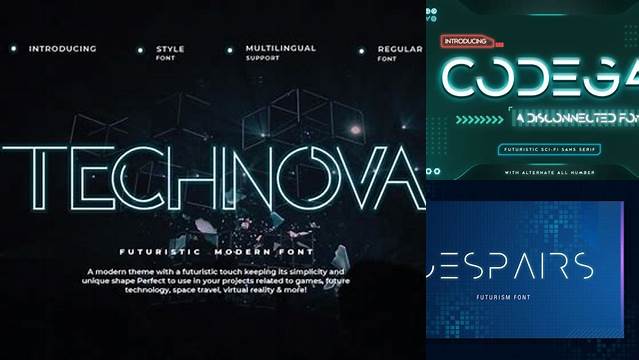
Futuristic Fonts: Free Downloads On Freepik!
Hey guys! Ever wanted to give your designs that cool, sci-fi edge? Well, you're in the right place! We're diving deep into the world of futuristic fonts, especially those amazing options you can find on Freepik. Futuristic fonts are all about conveying a sense of innovation, technology, and a glimpse into what's to come. They're perfect for projects that need a modern and cutting-edge feel, from website headers and app interfaces to movie posters and video game titles. So, let's explore how you can use these fonts to make your projects stand out!
What Makes a Font Futuristic?
Before we jump into specific fonts, let's talk about what actually makes a font feel futuristic. It's not just about looking like something from a sci-fi movie; there are certain design elements that contribute to that feeling. Typically, futuristic fonts often incorporate sleek lines, geometric shapes, and a minimalist aesthetic. They might have sharp angles, disconnected letterforms, or even incorporate elements that mimic digital displays or circuit boards. Think about the fonts you've seen in the title sequences of your favorite sci-fi films – those are great examples of what we're aiming for. The key is to create a visual style that evokes a sense of forward-thinking and technological advancement. These fonts can range from very subtle nods to the future to all-out, bold statements. Some might use a simple sans-serif typeface with slightly modified characters, while others might be completely abstract and experimental. It really depends on the specific mood and message you want to convey.
H2: How to Choose the Right Futuristic Font
Choosing the right futuristic font can make or break your design. It's not just about picking something that looks cool; it's about selecting a font that aligns with your project's message and aesthetic. Think about the overall tone you want to convey. Are you going for a sleek and sophisticated look, or something more edgy and experimental? A minimalist font with clean lines might be perfect for a tech startup's website, while a bolder, more abstract font could be ideal for a video game title. Consider the readability of the font, especially if you're using it for body text or longer paragraphs. A highly stylized font might look great in a headline, but it could be difficult to read in smaller sizes. Think about the context in which the font will be used. Will it be displayed on a screen, printed on paper, or used in a logo? Some fonts work better in certain mediums than others. For example, a font with very thin lines might not reproduce well in print. Finally, don't be afraid to experiment! Try out different fonts and see how they look in your designs. You might be surprised at what you discover. The best futuristic font is one that enhances your project and helps you communicate your message effectively.
H2: Using Futuristic Fonts in Web Design
Futuristic fonts can be a game-changer for web design, instantly giving your site a modern and tech-savvy vibe. Imagine a sleek, minimalist website for a tech startup, using a futuristic font for the headers and call-to-action buttons. It immediately conveys innovation and a forward-thinking approach. When using these fonts on the web, think about readability. While a bold, stylized font might be perfect for headlines, you'll want something clearer and more legible for body text. Pair a futuristic font for headings with a clean, sans-serif font for the body to ensure a balance of style and readability. Also, consider the loading times of your fonts. Some complex futuristic fonts might take longer to load, which can slow down your website. Opt for web-optimized fonts or use font loading techniques to minimize any impact on performance. Think about the overall color scheme of your website too. Futuristic fonts often look great against dark backgrounds, creating a sense of sophistication and mystery. Use them sparingly and strategically to create a visual hierarchy and guide users through your content. With the right futuristic font, your website can make a powerful statement and leave a lasting impression.
H2: Futuristic Fonts for Logo Design
A logo is the face of your brand, and a futuristic font can give your logo a cutting-edge and memorable identity. Think about tech companies, gaming brands, or innovative startups – a futuristic font can perfectly capture their forward-thinking spirit. When choosing a font for your logo, think about its versatility. Your logo will appear in various sizes and mediums, so the font needs to be legible and impactful whether it's on a business card or a billboard. A simpler, cleaner futuristic font often works best for logos, as it will scale more effectively and remain recognizable even at small sizes. Consider the negative space in your logo as well. Futuristic fonts with unique shapes and lines can create interesting negative space patterns that add to the visual appeal of your logo. Think about how the font reflects your brand values. A futuristic font can convey innovation, technology, and a modern outlook. Ensure the font aligns with your brand personality and resonates with your target audience. Don't be afraid to customize a futuristic font to make it truly unique to your brand. You can adjust the spacing, kerning, or even modify the letterforms to create a one-of-a-kind logo that stands out from the crowd. A well-chosen futuristic font can elevate your logo and help your brand make a strong statement.
H2: Creating a Sci-Fi Aesthetic with Fonts
If you're aiming for a full-on sci-fi aesthetic, futuristic fonts are your best friend. Think of the opening credits of your favorite sci-fi movies or the immersive world of video games – fonts play a huge role in creating that futuristic atmosphere. To achieve that sci-fi look, go for fonts that have sharp angles, geometric shapes, and a sense of technical precision. Fonts with disconnected letterforms or those that mimic digital displays can also add a futuristic touch. Consider the weight and style of the font. Bold, condensed fonts often convey a sense of power and technology, while lighter, more minimalist fonts can create a sleek and sophisticated feel. Experiment with different font pairings. A futuristic font for headlines combined with a simpler, monospaced font for body text can create a classic sci-fi aesthetic. Think about the color palette you're using as well. Futuristic fonts often look striking against dark backgrounds, especially when paired with neon or electric blue accents. Use lighting effects, such as glows and shadows, to enhance the futuristic feel of your fonts. This can add depth and dimension to your text and make it look like it's glowing from within. With the right futuristic fonts and design choices, you can transport your audience to another world and create a truly immersive sci-fi experience.
H2: Pairing Futuristic Fonts with Other Styles
While futuristic fonts are fantastic on their own, pairing them with other font styles can create even more dynamic and visually appealing designs. The key is to find a balance that complements the futuristic vibe without overwhelming it. A classic pairing is a futuristic font for headlines with a clean, sans-serif font for body text. This combination provides a modern and readable aesthetic, perfect for websites, presentations, and marketing materials. Think about using a futuristic font for key elements, like titles and call-to-action buttons, and a more traditional font for longer paragraphs of text. This creates a visual hierarchy that guides the reader's eye and makes your content easier to digest. You can also experiment with contrasting styles. Pairing a bold futuristic font with a delicate script font can create an interesting juxtaposition that adds visual interest to your design. Just be sure to use this technique sparingly, as too much contrast can be overwhelming. Consider the overall tone of your project. If you're going for a minimalist look, pair your futuristic font with a simple and understated font. If you want something more playful and energetic, try pairing it with a more expressive font. The goal is to create a cohesive design that reflects your message and style. With careful consideration, pairing futuristic fonts with other styles can elevate your designs and make them truly stand out.
Geometric futuristic fonts are characterized by their clean lines, precise angles, and shapes derived from basic geometric forms like circles, squares, and triangles. These fonts often evoke a sense of order, efficiency, and technological precision, making them ideal for projects that require a modern and streamlined aesthetic. Think of the logos of tech companies or the interfaces of futuristic gadgets – geometric fonts are often the go-to choice. The key to using geometric futuristic fonts effectively is to ensure readability. While their sharp angles and clean lines can create a striking visual impact, it's important to choose a font that remains legible even at smaller sizes. Look for fonts that have a good balance between geometric precision and overall clarity. Consider the weight of the font as well. Bold geometric fonts can make a strong statement, while lighter weights can create a more subtle and sophisticated look. Experiment with different letter spacing and kerning to achieve the desired visual effect. Geometric futuristic fonts pair well with other minimalist design elements, such as clean layouts, plenty of white space, and a limited color palette. They can also be effectively combined with other font styles, such as sans-serif or monospaced fonts, to create a visually interesting and balanced design. With their clean and modern aesthetic, geometric futuristic fonts are a powerful tool for creating designs that feel innovative and cutting-edge.
H3: Minimalist Futuristic Fonts
Minimalist futuristic fonts embody the